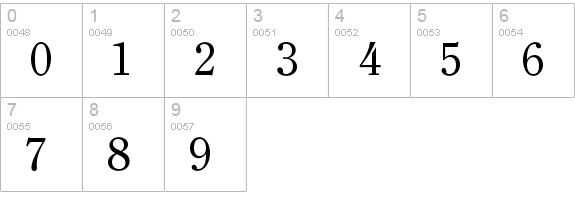
ClearfaceRegular Font Details
ClearfaceRegular is a versatile and elegant font that exudes a sense of sophistication and modernity. With its clean lines and classic design, this font is perfect for a wide range of design projects, from branding to editorial layouts. The ClearfaceRegular font offers a perfect balance between traditional and contemporary aesthetics, making it a timeless choice for designers looking to make a bold statement. What makes ClearfaceRegular even more appealing is that it is available for free download at FontsMarket.com. This means that anyone can access this high-quality font without any cost, making it a valuable resource for both professionals and hobbyists alike. Whether you're working on a professional project or simply exploring your creativity, ClearfaceRegular is a font that will elevate your designs and help you stand out from the crowd. Download ClearfaceRegular today and discover the endless possibilities it offers for your next design endeavor.